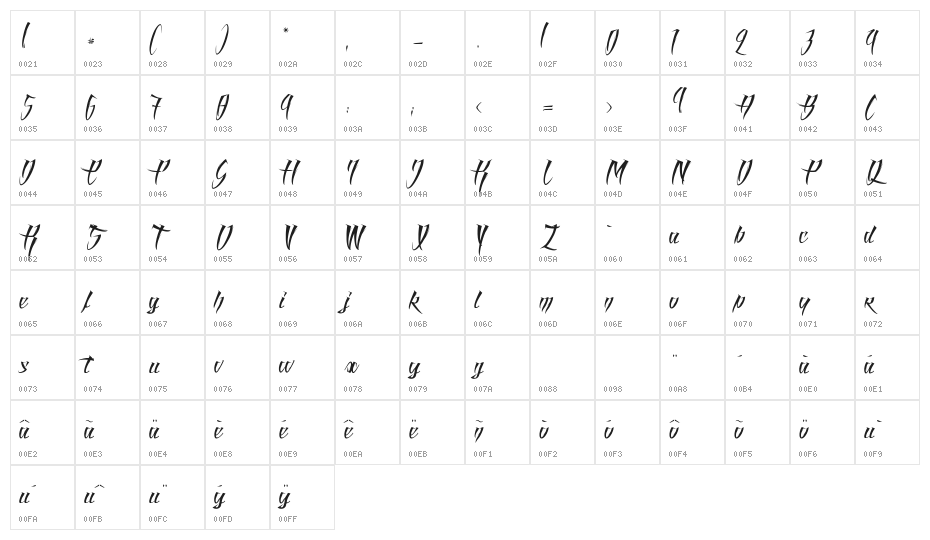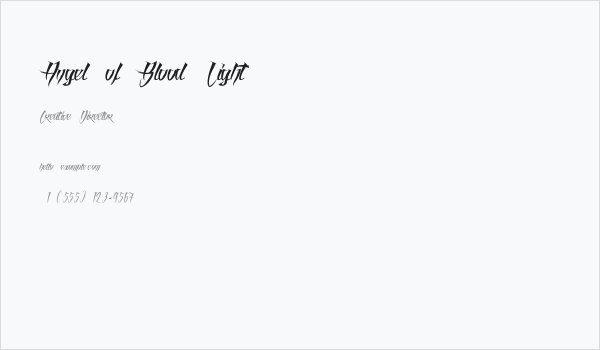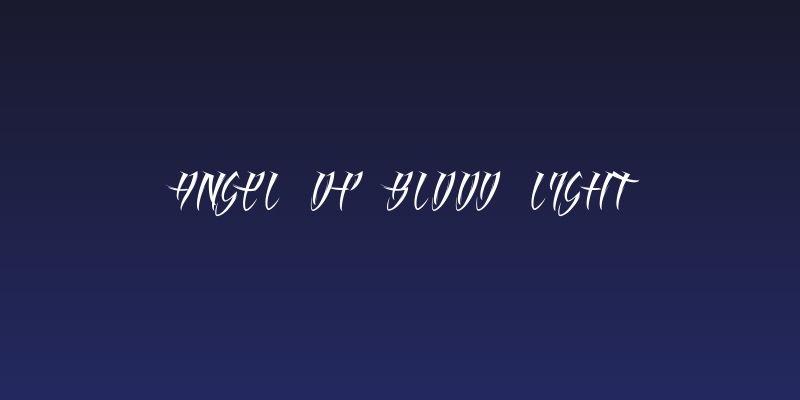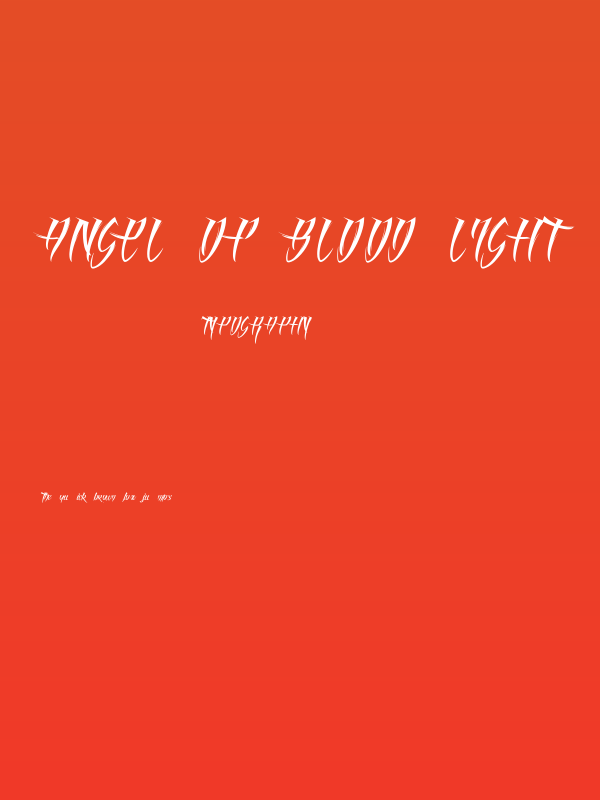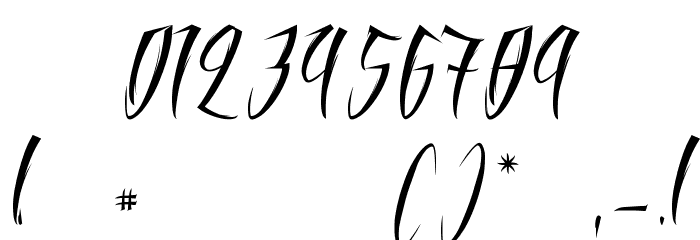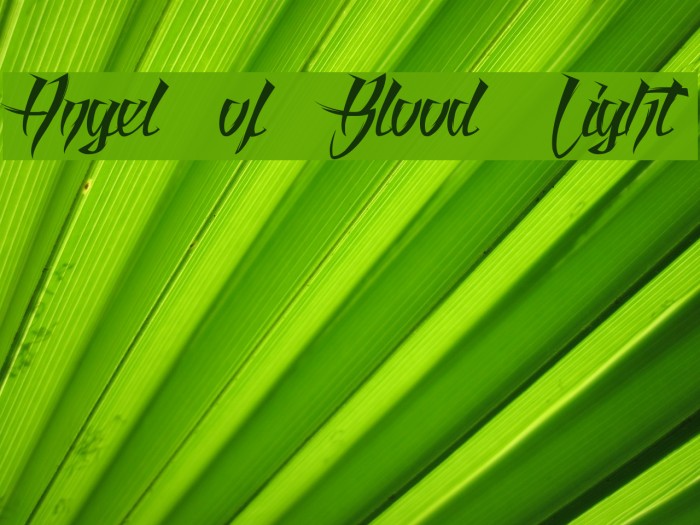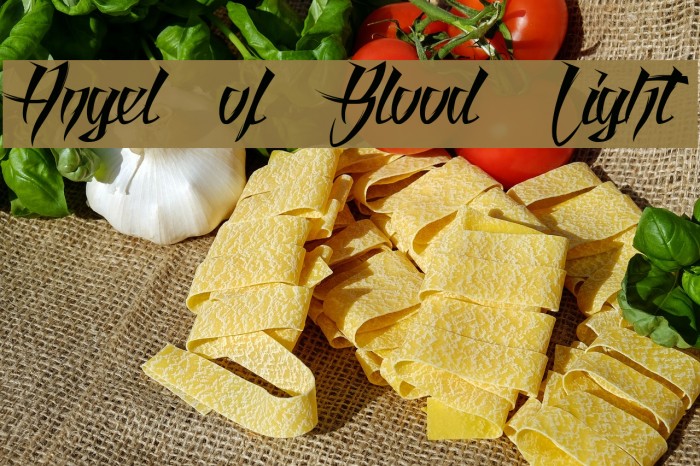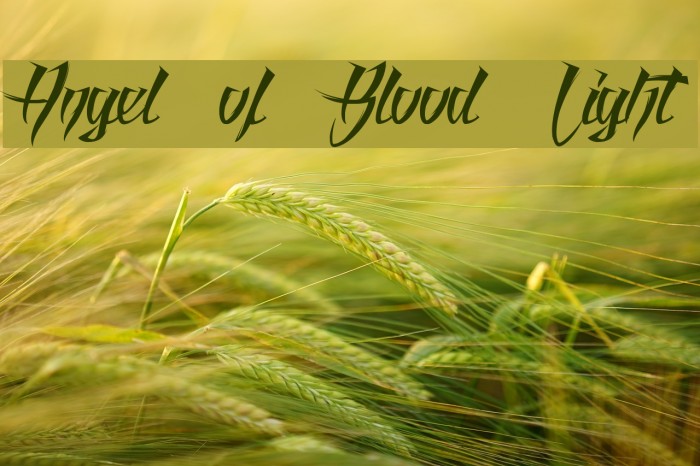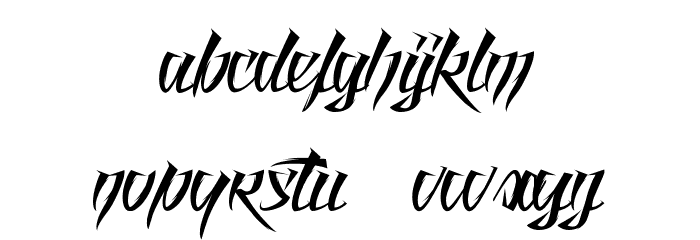
Angel of Blood Light Font
Angel of Blood Light Description
This font features a dramatic and expressive style, characterized by its sharp, angular strokes and fluid, sweeping curves. The letters exhibit a dynamic movement, reminiscent of calligraphic brushwork, with a gothic flair. The uppercase characters are bold and commanding, while the lowercase letters maintain a consistent flow, enhancing the overall aesthetic. The numerals and special characters are crafted with the same attention to detail, ensuring a cohesive look across all glyphs. This font's unique design makes it stand out, offering a sense of elegance and intensity.
| Overall Style | Gothic, Decorative |
| Use Case | Logos, Headlines, Posters |
| Proposed Projects | Ideal for tattoo designs, album covers, gothic-themed posters, and branding for edgy or alternative products. |